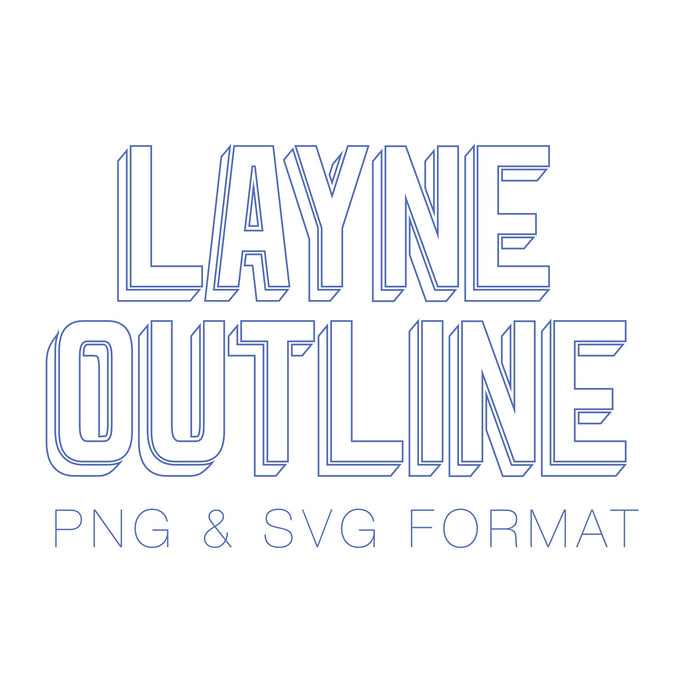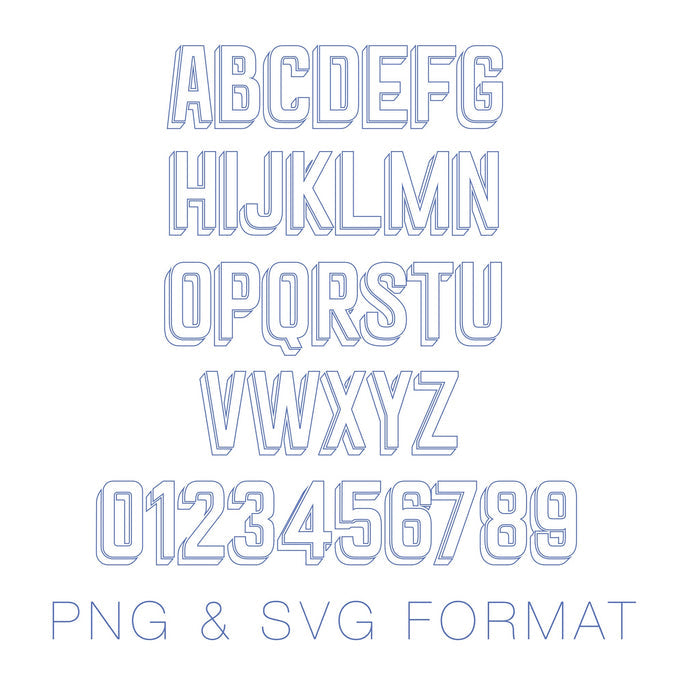
Layne Shadow Outline Monogram PNG SVG Monogram Font
PNG and SVG Open Outline PNG SVG Font for our best selling Layne Shadowl Monogram included in this download. The inside of this font is open and this font is for the outline to create an architectual version of the Layne Shadow Font.